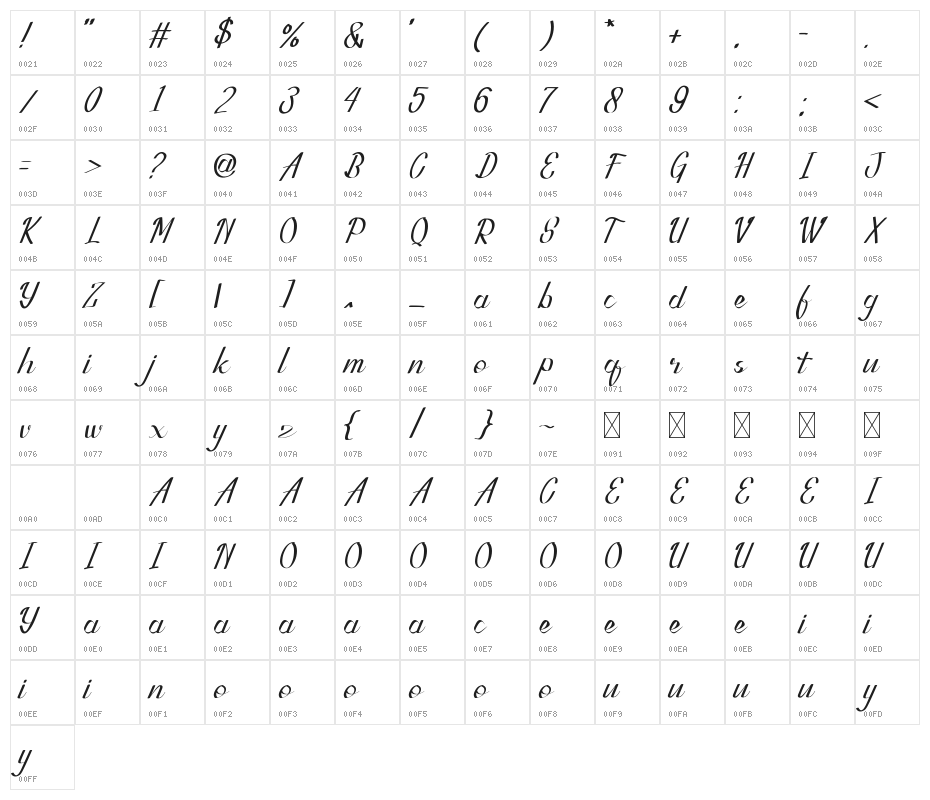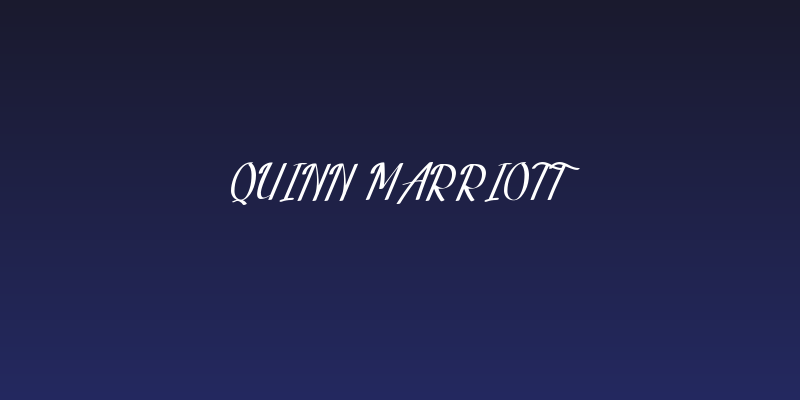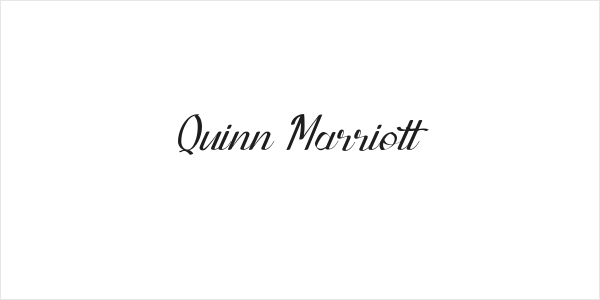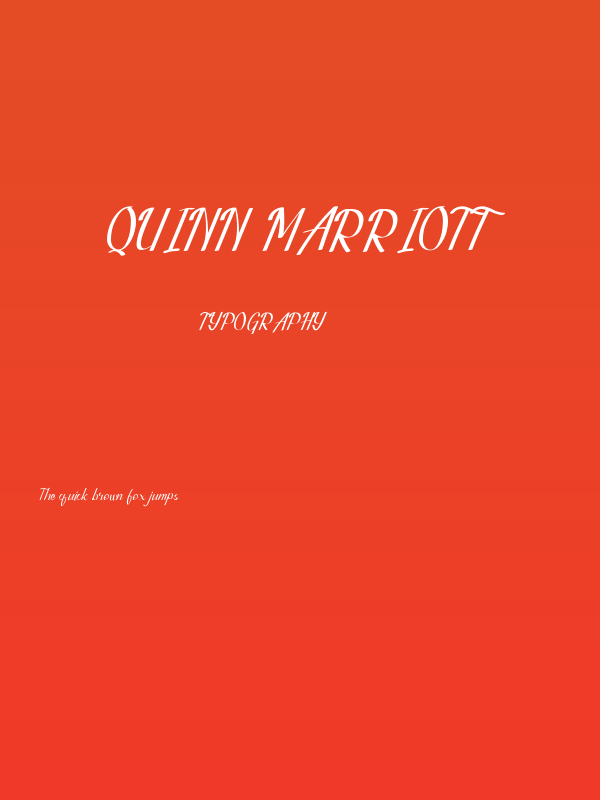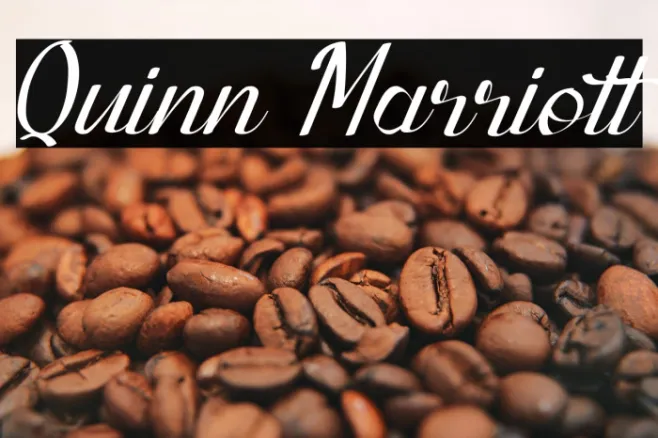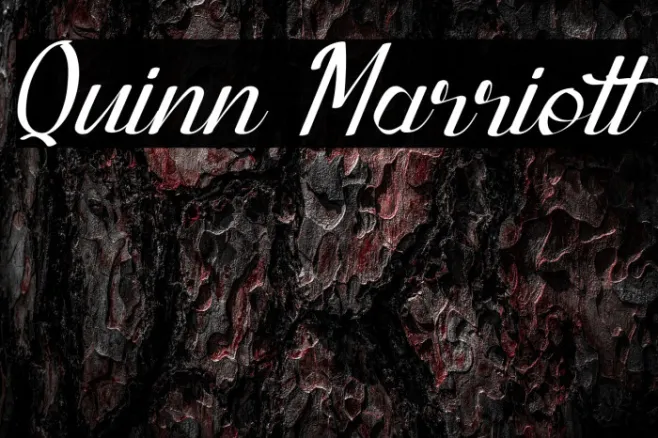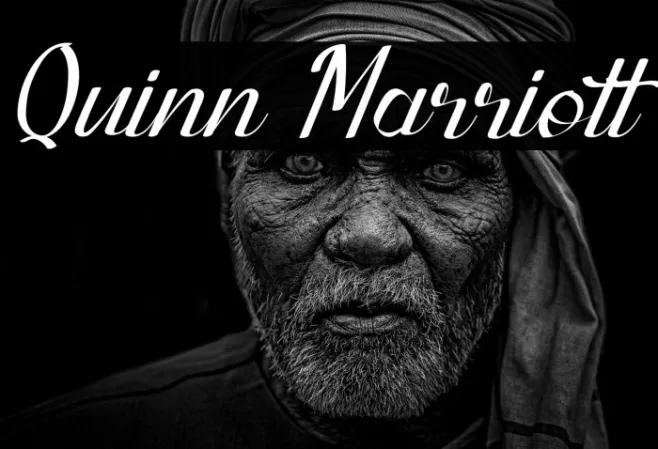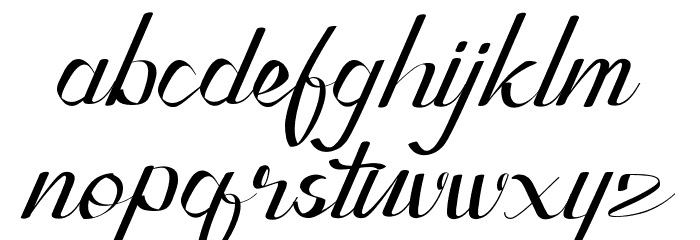
Quinn Marriott Font
Quinn Marriott Description
This elegant script font features a flowing, cursive style with a sophisticated flair. The uppercase letters are tall and slightly slanted, giving a sense of movement and grace. The lowercase letters maintain a consistent flow, with smooth connections between characters, enhancing readability while preserving the decorative nature. The numerals are designed to match the script style, with a slight slant and consistent stroke width. Special characters are crafted to integrate seamlessly with the overall design, maintaining the font's cohesive appearance. This font is ideal for projects that require a touch of elegance and sophistication.
| Overall Style | Elegant, Sophisticated |
| Proposed Projects | Wedding invitations, elegant branding, greeting cards, and upscale packaging. |